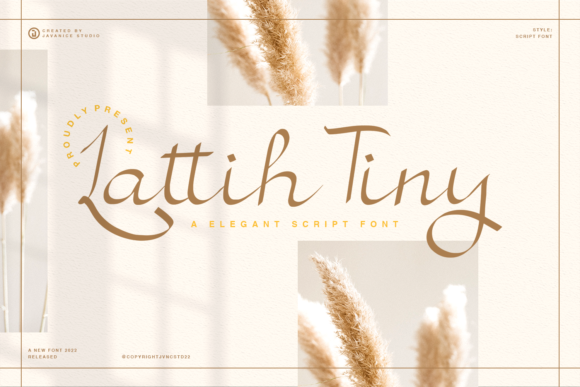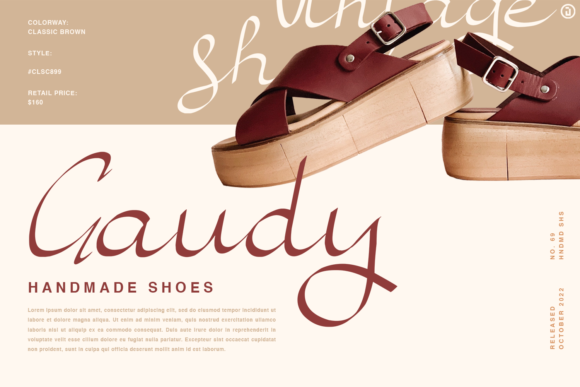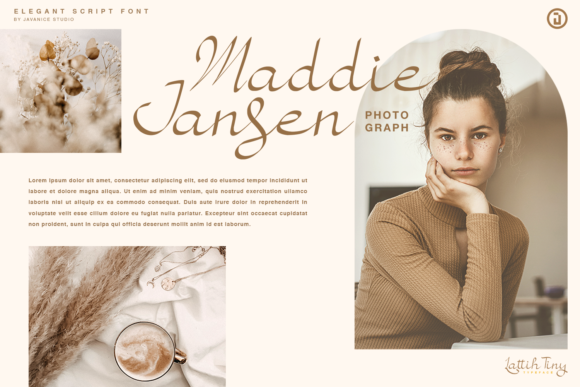
About Lattih Tiny Font
“Lattih Tiny” stands out as a gorgeous and slim handwritten font, meticulously crafted to add a touch of elegance and sophistication to your design projects. Its slim design makes it a perfect choice for a variety of applications, including product packaging, branding projects, magazine covers, social media content, weddings, or whenever you want to convey words with a sleek and refined style against a background.
The font’s slender and handwritten aesthetic imparts a sense of grace and delicacy to your designs. Imagine “Lattih Tiny” enhancing product packaging, where its slim and elegant style adds a touch of sophistication to the overall design. Visualize it on a magazine cover, effortlessly capturing attention and exuding a modern and refined vibe.
For branding projects, “Lattih Tiny” can contribute to a brand identity that feels chic and contemporary. Its handwritten charm is well-suited for social media posts, creating a stylish and visually appealing tone. In wedding materials, the font’s slim nature can bring a modern and refined touch to invitations, RSVP cards, and other related designs.
Whether utilized digitally or in print, “Lattih Tiny” adapts seamlessly to different design contexts, allowing you to express words with a sense of sleekness and sophistication. Its gorgeous and slim design makes it an excellent choice for projects where a refined and elegant style is desired.
In summary, “Lattih Tiny” transcends being just a font; it serves as a design tool that introduces a touch of sophistication to your creative projects. Its slim and elegant nature makes it a standout choice for those seeking a font that effortlessly communicates a sleek and refined aesthetic in various design scenarios.